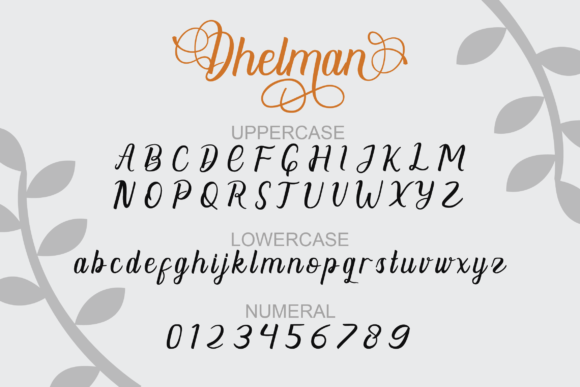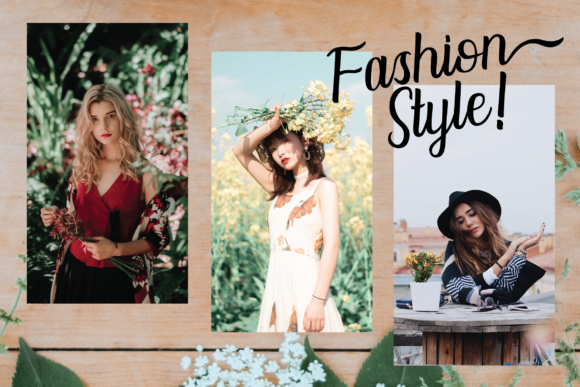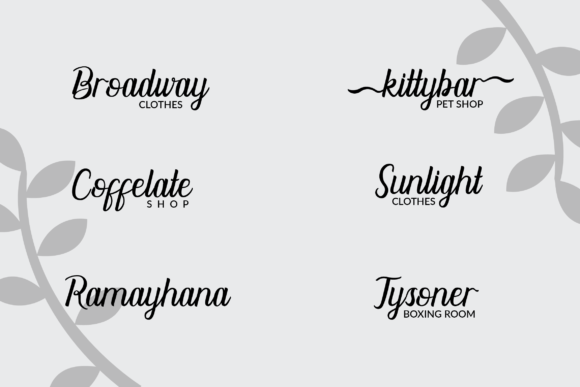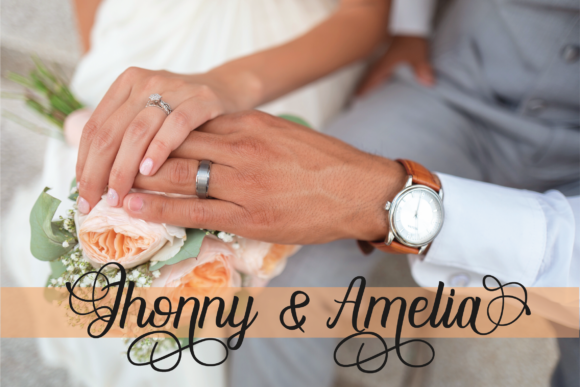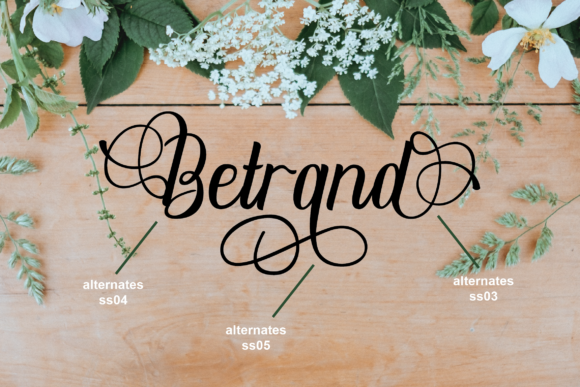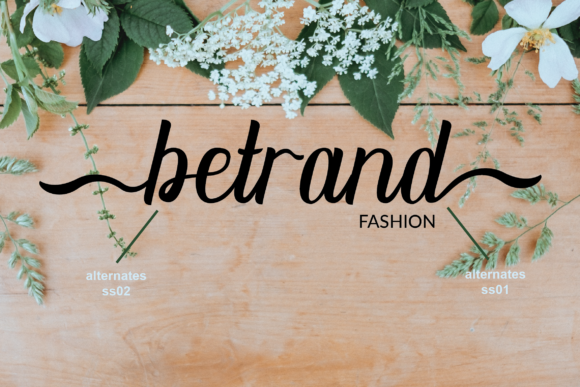
Dhelman Script Font: Elevate Your Designs with Elegance and Sophistication
Dhelman is an incredibly beautiful script that will work well in a wide variety of design projects. Its stunning swashes will draw anyone’s attention! If you’re a designer or crafter looking for a font that exudes elegance and sophistication, look no further than Dhelman Script Font. In this article, we’ll dive into the world of Dhelman Script Font, exploring its features, benefits, and uses, as well as provide tips on how to make the most of this gorgeous font.
What is Dhelman Script Font?
Dhelman Script Font is a stunning script font that boasts beautiful swashes and elegant lettering. Its unique design makes it perfect for a wide range of design projects, from wedding invitations and branding materials to social media graphics and more. With its flowing lines and sophisticated style, Dhelman Script Font is sure to add a touch of elegance to any design.
Key Features of Dhelman Script Font
• Beautiful Swashes: Dhelman Script Font features stunning swashes that add a touch of drama and elegance to any design.
• Elegant Lettering: The font’s elegant lettering makes it perfect for designs that require a sophisticated touch.
• Versatile: Dhelman Script Font can be used in a wide range of design projects, from wedding invitations to branding materials and more.
• Easy to Read: Despite its elegant design, Dhelman Script Font is easy to read, making it perfect for body text and headings.
Benefits of Using Dhelman Script Font
So, why should you choose Dhelman Script Font for your next design project? Here are just a few benefits of using this gorgeous font:
• Adds Elegance: Dhelman Script Font adds a touch of elegance and sophistication to any design, making it perfect for designs that require a high-end feel.
• Standout Designs: The font’s unique design and beautiful swashes make it perfect for creating standout designs that grab attention.
• Time-Saving: With Dhelman Script Font, you can create stunning designs in no time, thanks to its easy-to-use and versatile design.
Uses of Dhelman Script Font
Dhelman Script Font is perfect for a wide range of design projects, including:
• Wedding Invitations: Add a touch of elegance to your wedding invitations with Dhelman Script Font.
• Branding Materials: Use Dhelman Script Font to create stunning branding materials, such as logos, business cards, and more.
• Social Media Graphics: Create eye-catching social media graphics with Dhelman Script Font.
• Signage: Use Dhelman Script Font to create stunning signage, such as menus, posters, and more.
Tips for Using Dhelman Script Font
Here are a few tips for getting the most out of Dhelman Script Font:
• Use it Sparingly: While Dhelman Script Font is stunning, it’s best used sparingly to avoid overwhelming the design.
• Pair it with a Simple Font: Pair Dhelman Script Font with a simple font to create a beautiful contrast.
• Experiment with Swashes: Don’t be afraid to experiment with the font’s beautiful swashes to add drama and elegance to your design.
In conclusion, Dhelman Script Font is a stunning script font that is perfect for designers and crafters looking to add a touch of elegance and sophistication to their designs. With its beautiful swashes, elegant lettering, and versatile design, Dhelman Script Font is sure to become a go-to font in your design arsenal. So why wait? Download Dhelman Script Font today and start creating stunning designs that grab attention!